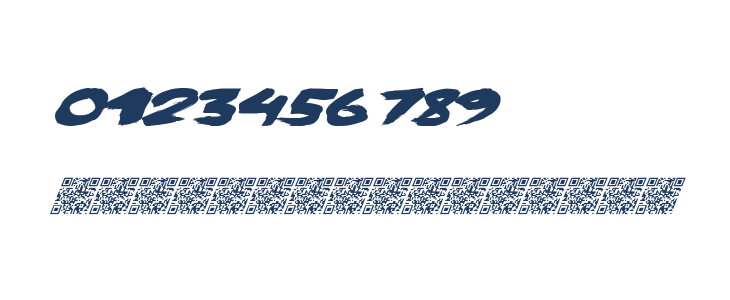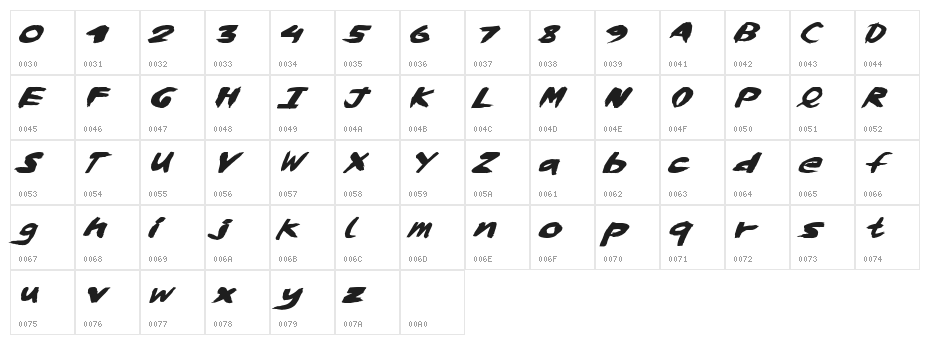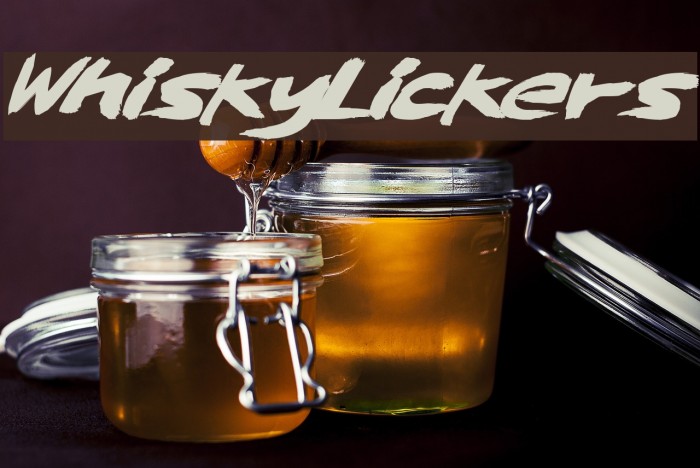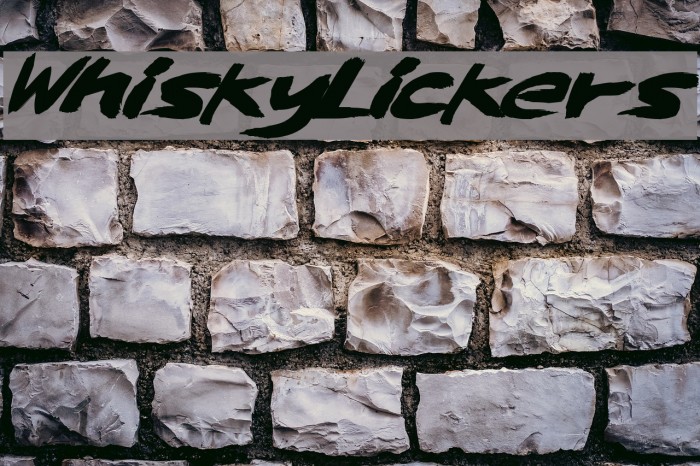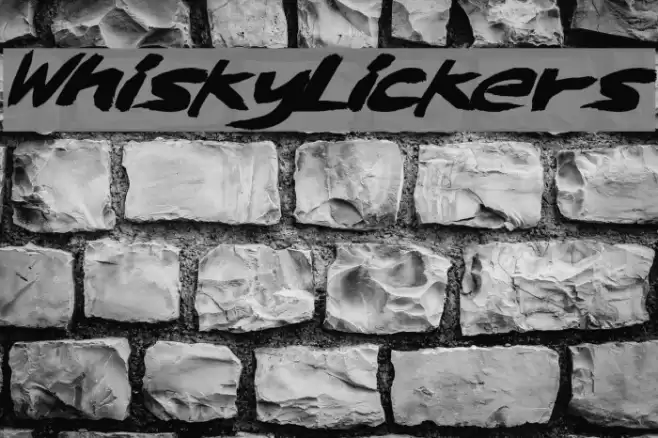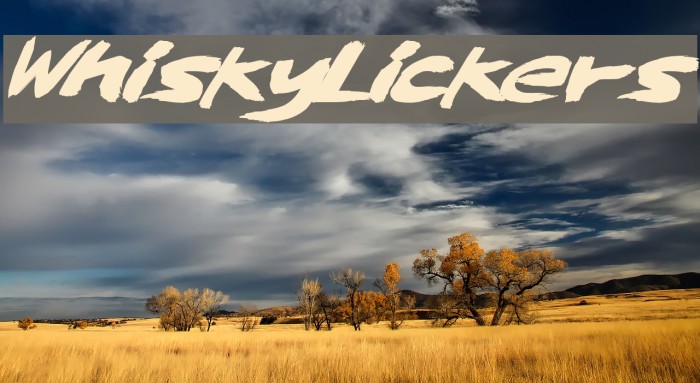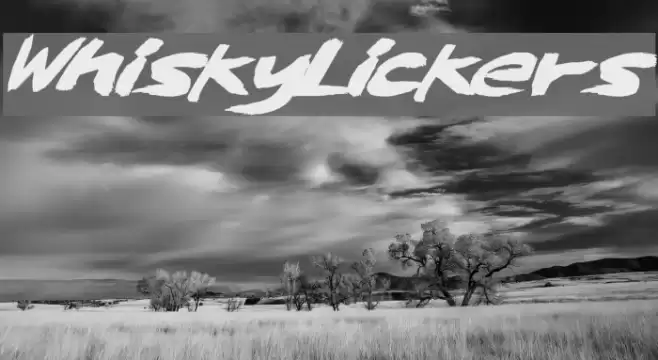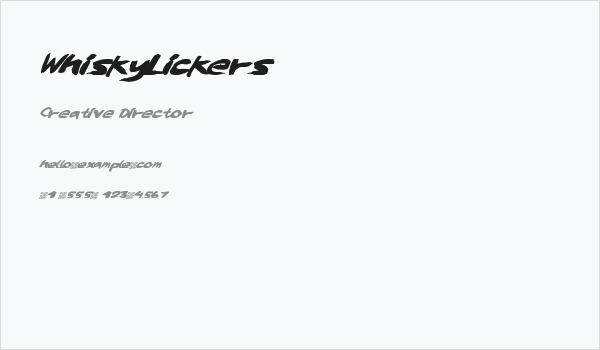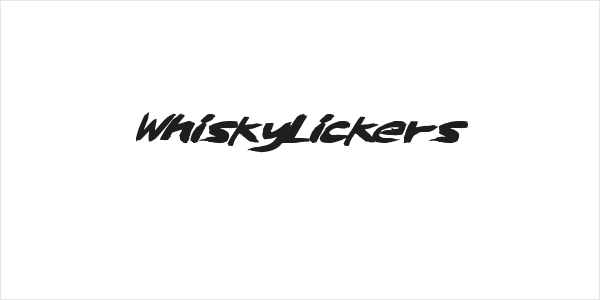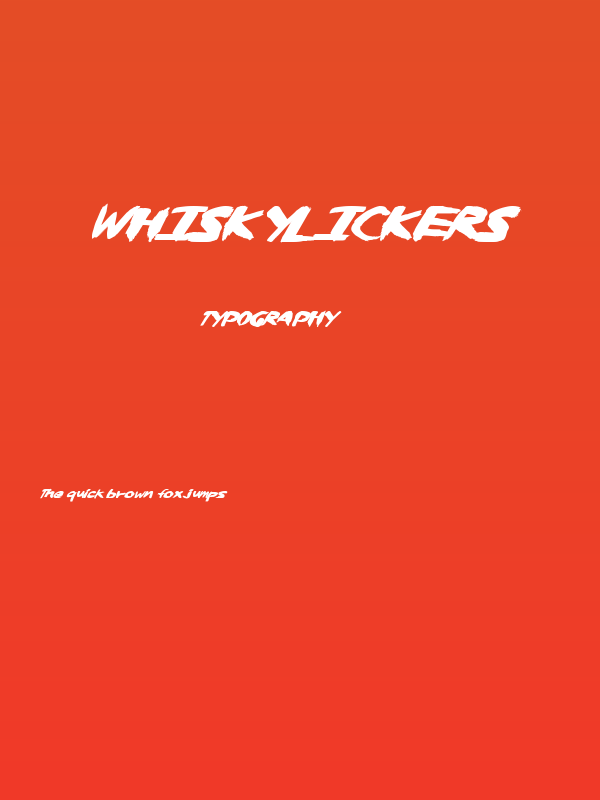
WhiskyLickers Font
WhiskyLickers Description
This font features a bold and dynamic brush script style, characterized by its thick, sweeping strokes and energetic movement. The letters are slightly slanted, giving a sense of speed and fluidity. Each character has a unique, hand-drawn appearance, with varying stroke widths that add to its expressive and artistic feel. The uppercase and lowercase letters maintain a consistent style, while the numerals are equally bold and impactful. This font is ideal for projects that require a strong, creative presence, such as branding, posters, and headlines. Its distinctive style makes it stand out, capturing attention with its bold and artistic flair.